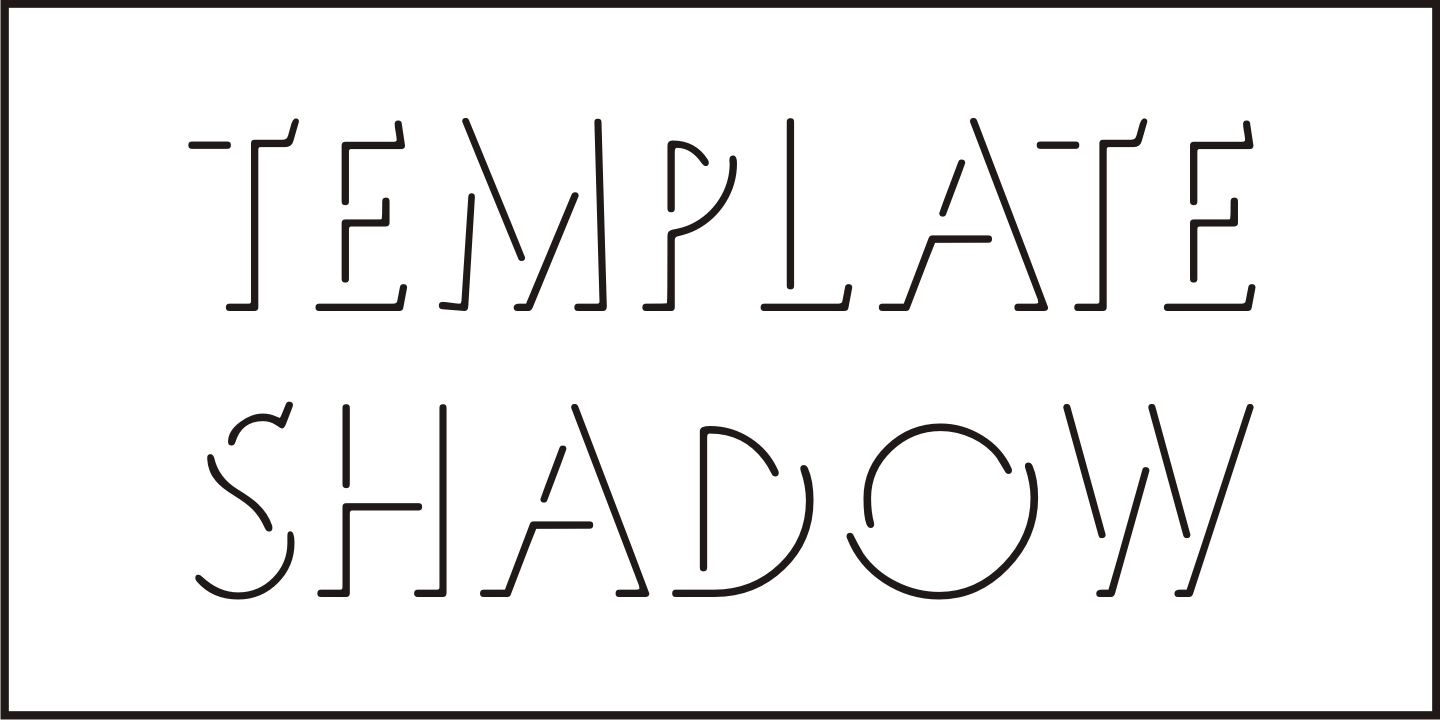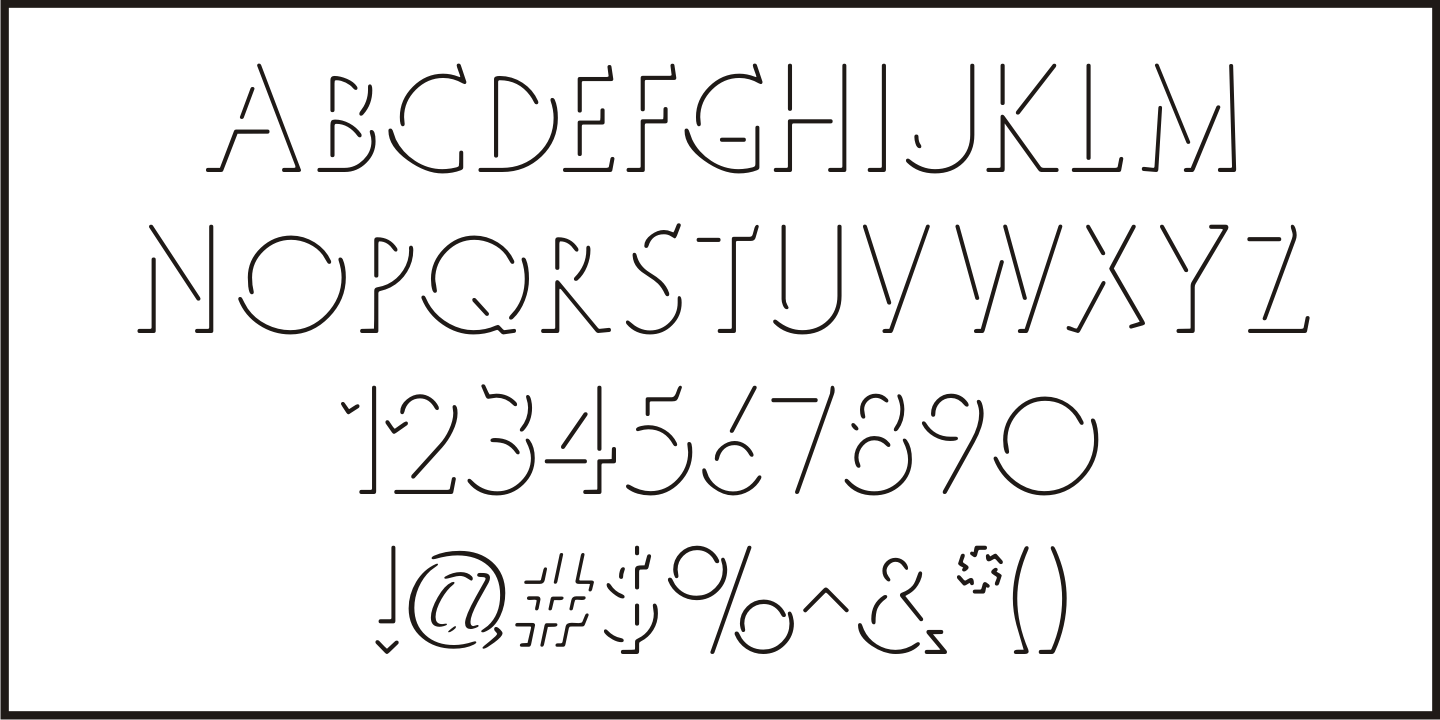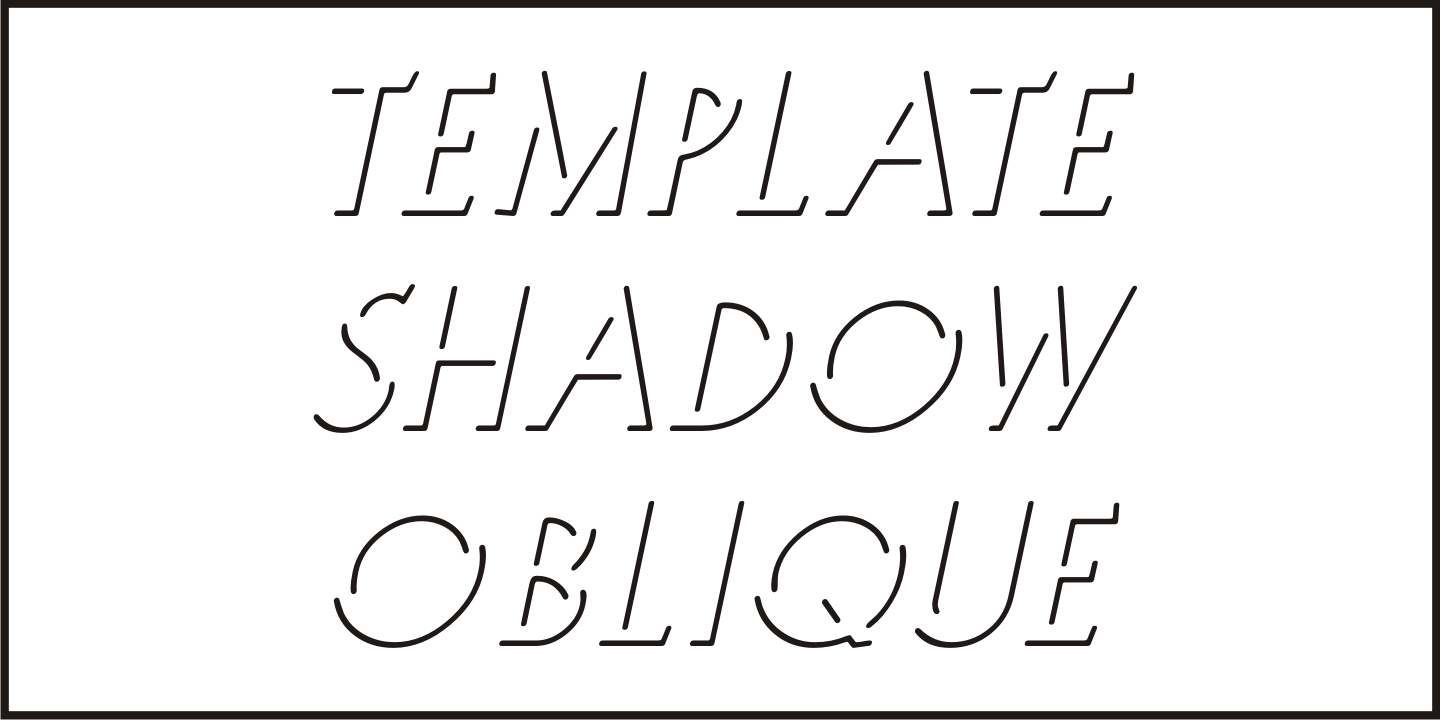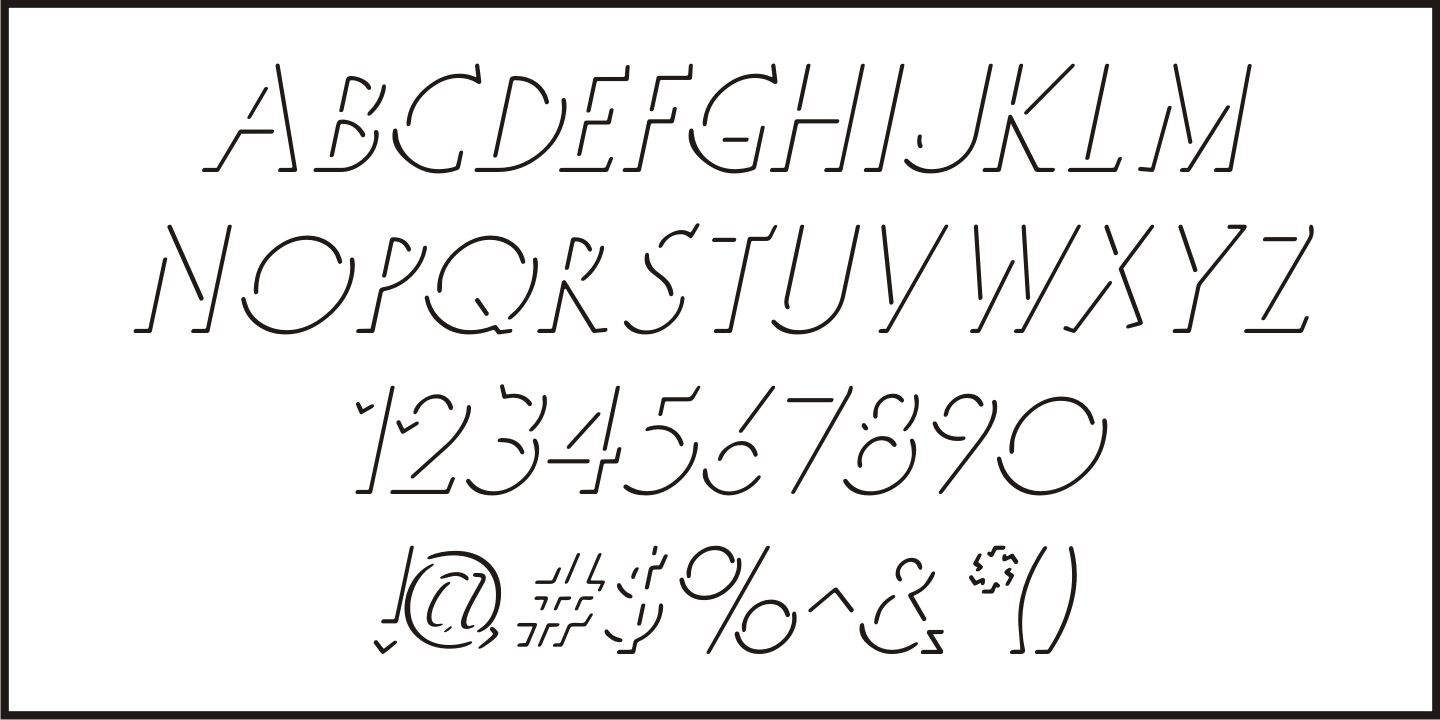
Template Shadow
A series of lettering guides called 'Mimeostyle' for the A. B. Dick Company of Chicago (produced for use in making mimeograph machine printing stencils) were custom manufactured by the Wright-Regan Instrument Company (Wrico).
One design featured a sans serif letter produced in Shadow relief, with a touch of Art Deco flair.
This is now available as Template Shadow JNL, in both regular and oblique versions.